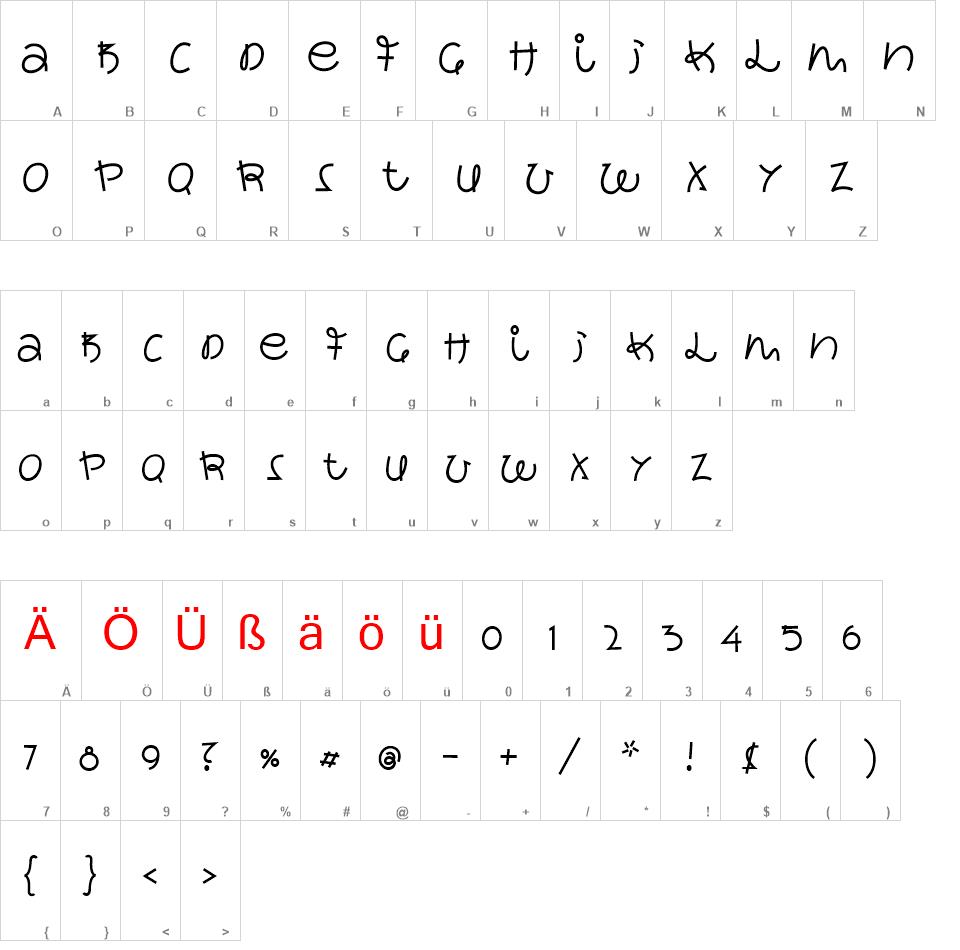
Wacky Sushi
Wacky Sushi font
WACKY SUSHI is a Hiragana based font, I was trying to apply the strokes and the way of drawing Japanese Hiragana letters
to the basic latin which led to this "wacky" result.
The Hiragana characters look "normal" but you only can use it if you have MS IME input installed on your computer for Japanese characters input.
(And some basic knowledge of the Japanese language).